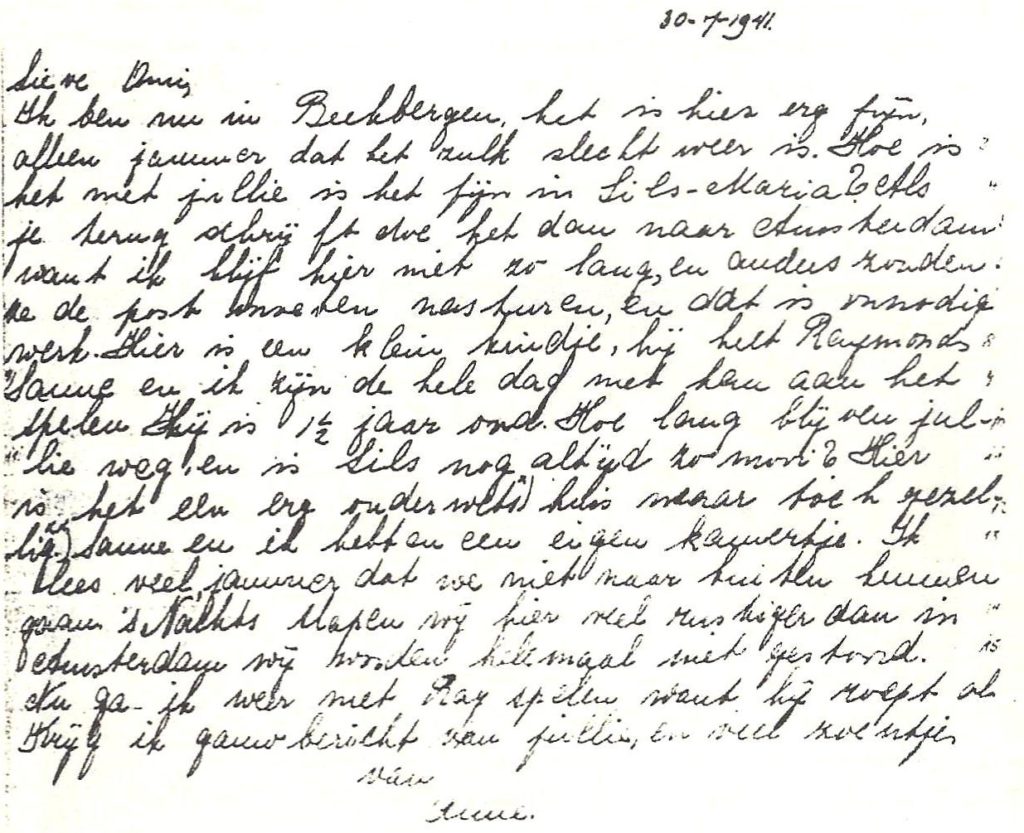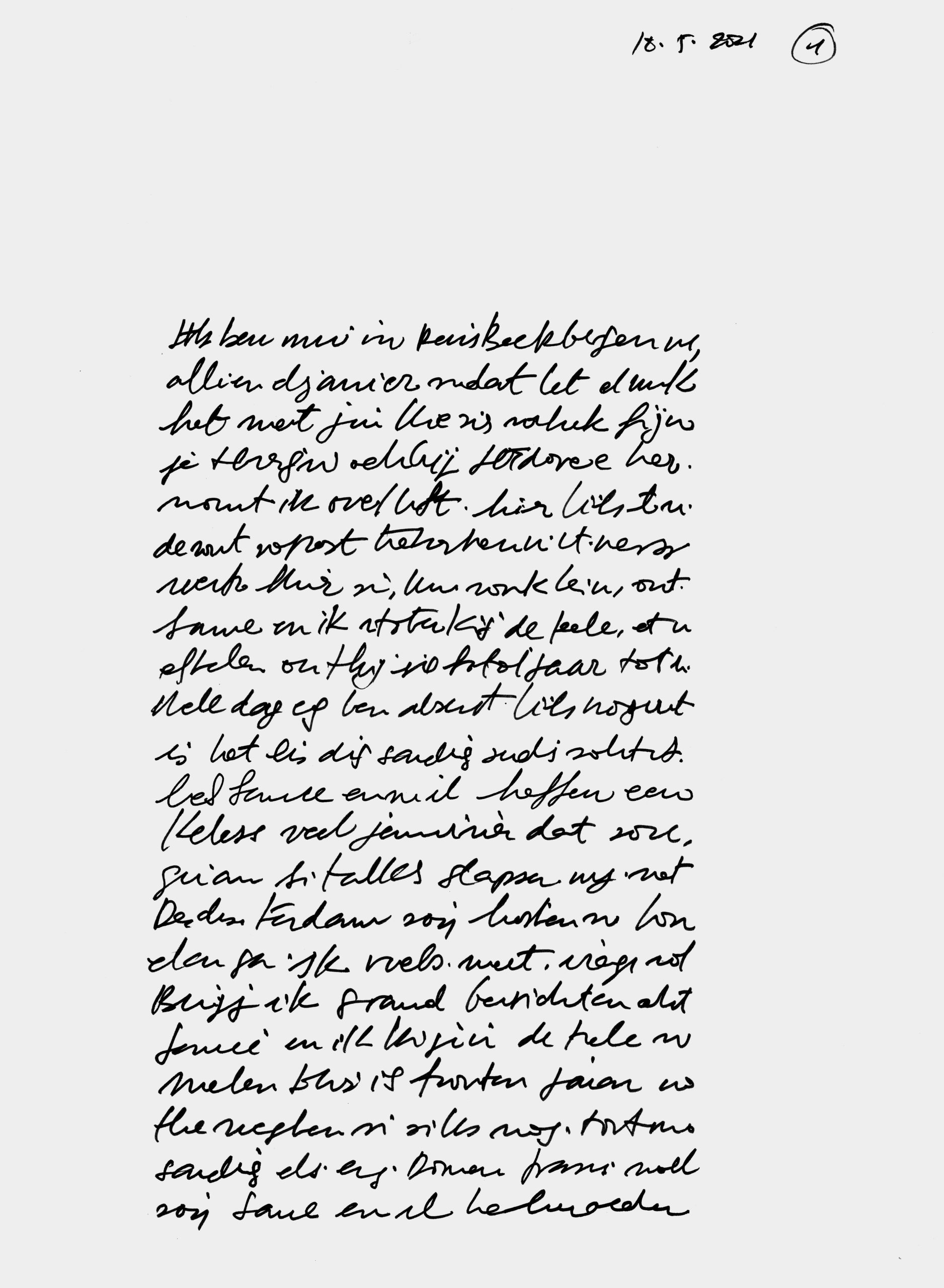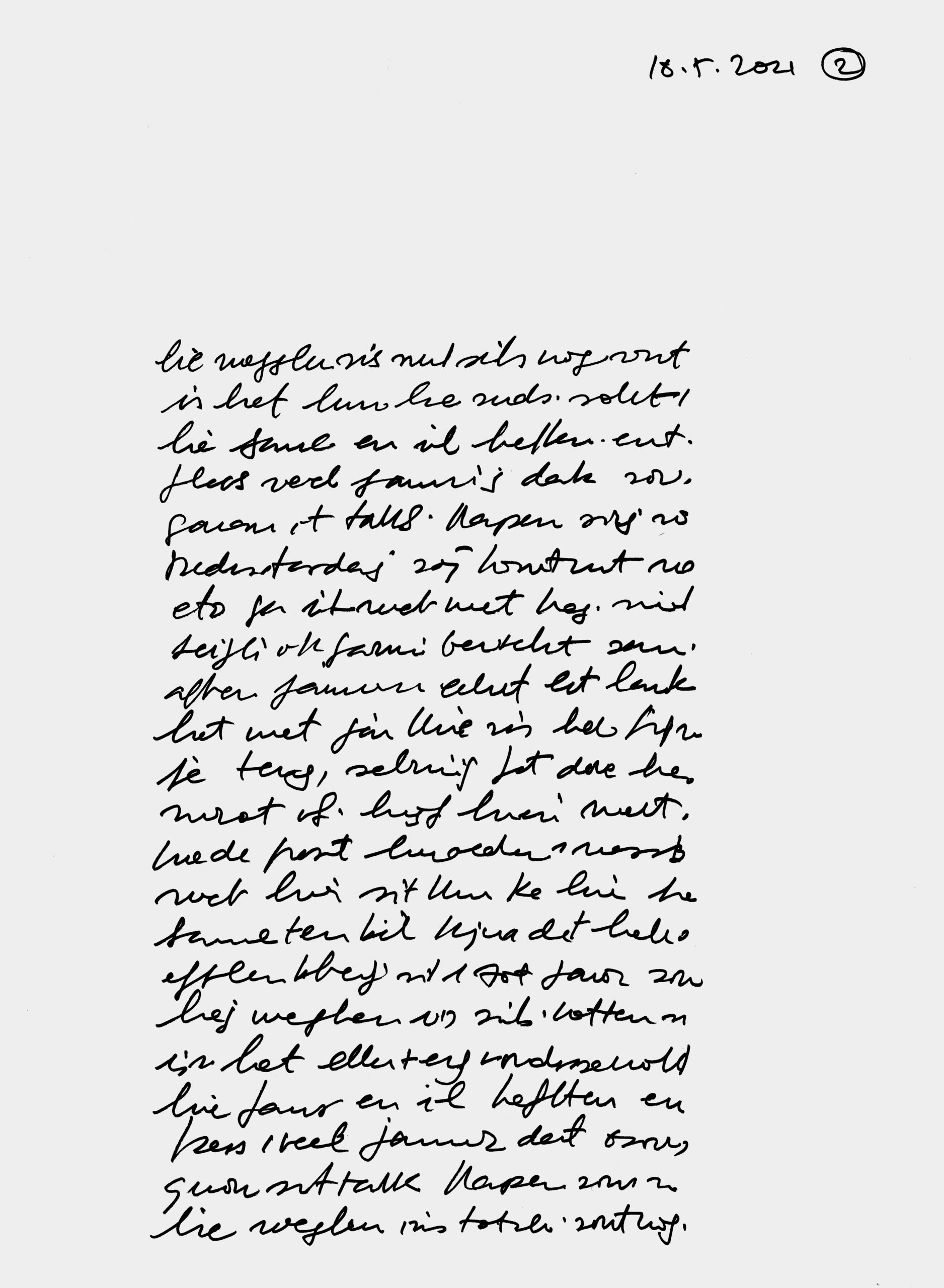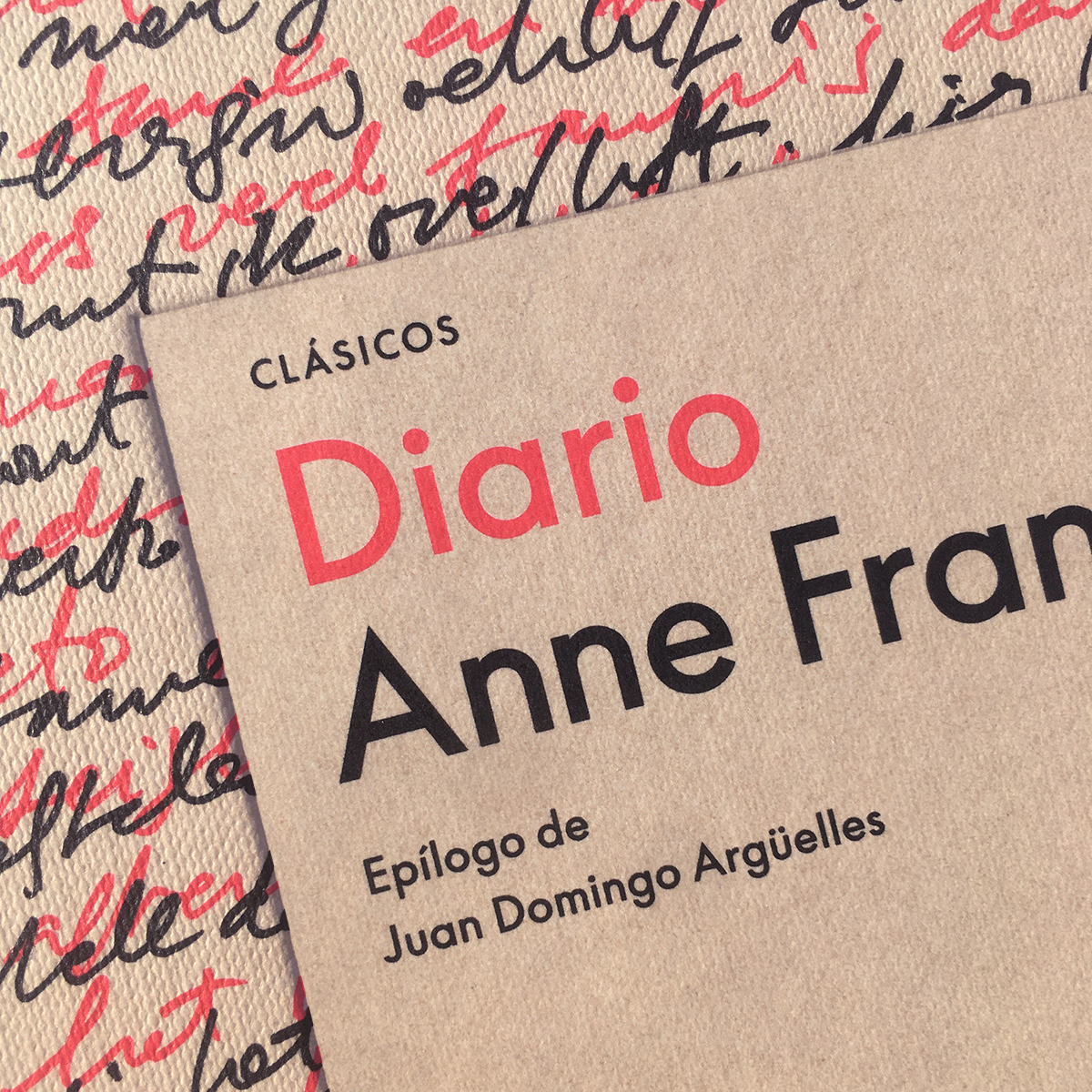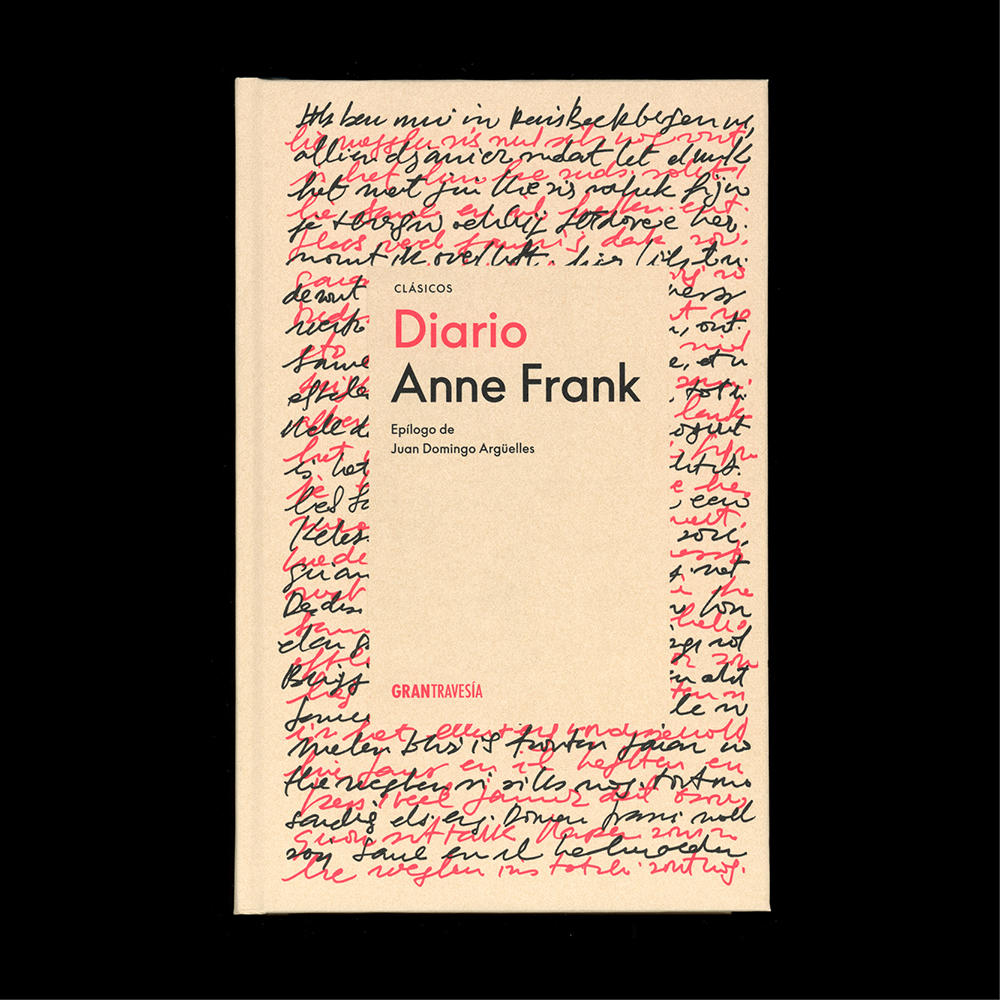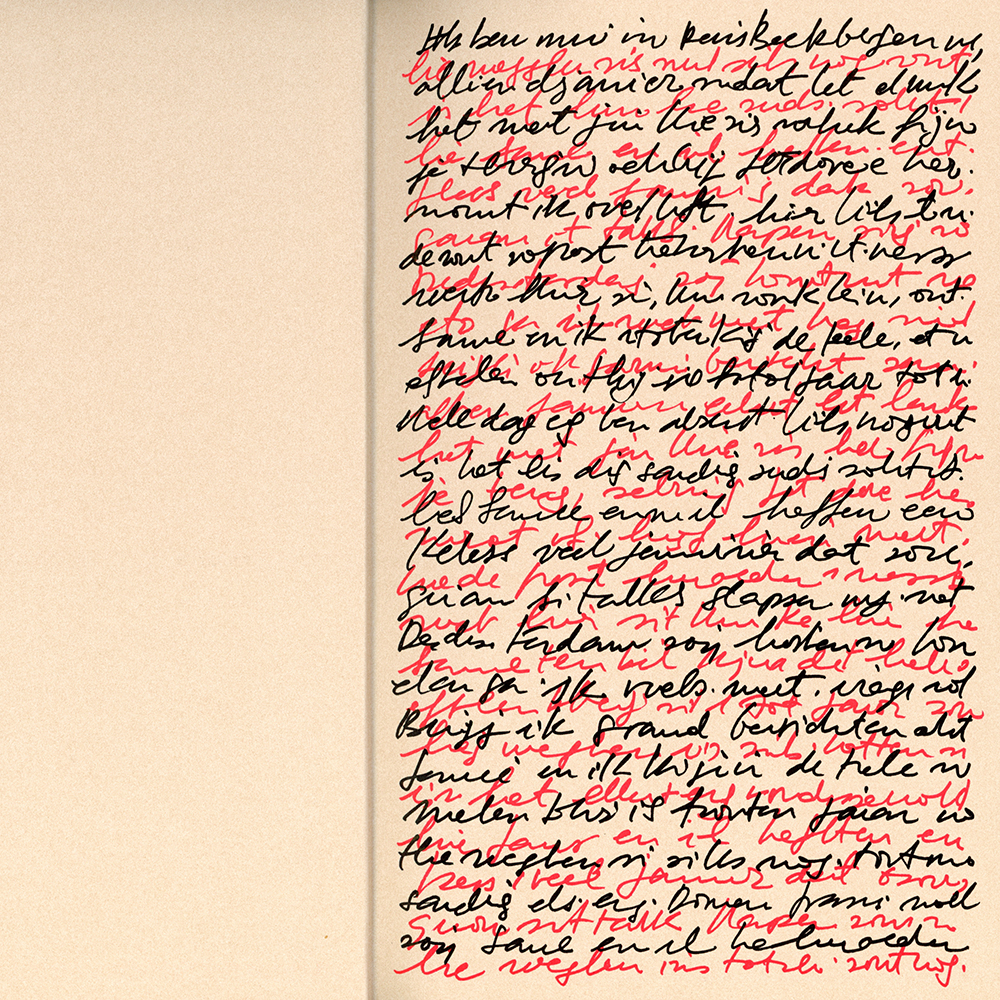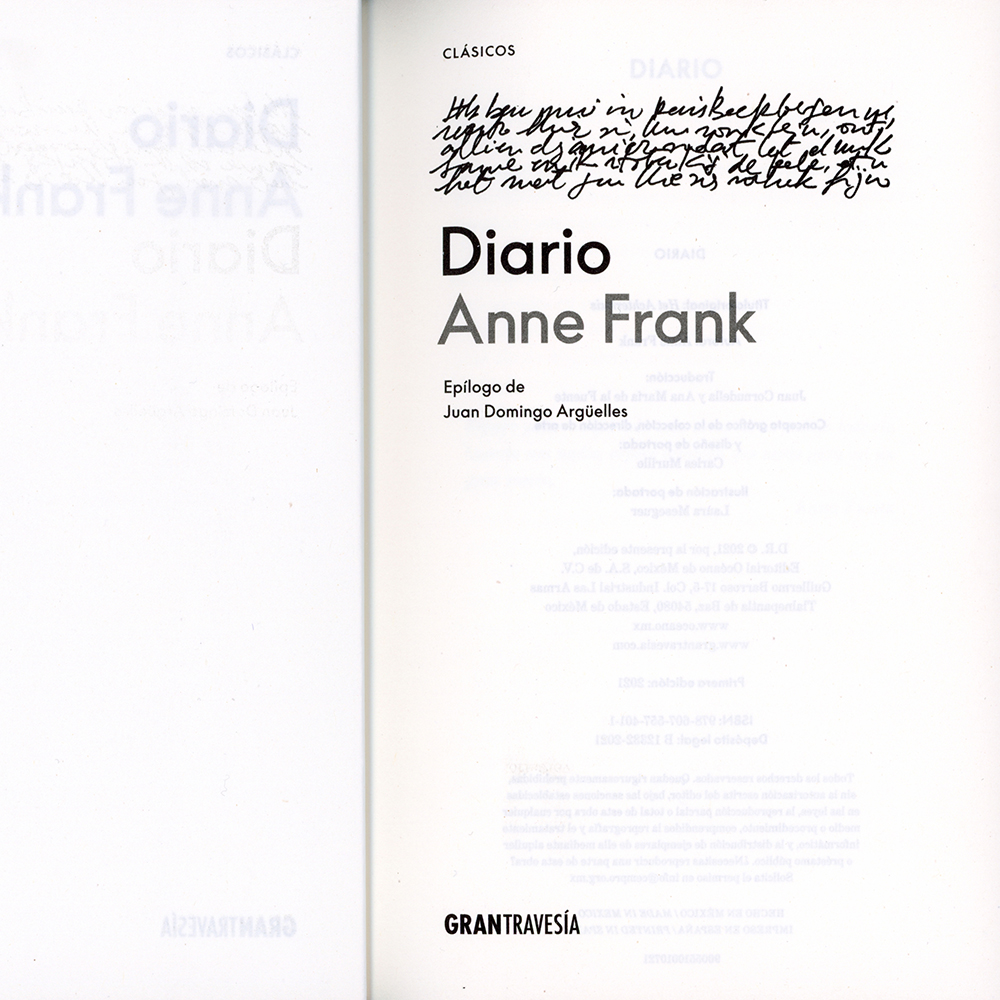
Custom calligraphic texture for Diario Anne Frank by Gran Travesía
This is one of those special projects in which Laura could use the plasticity of writing to emphasize the design concept.
Carles Murillo, the art director of Editorial Oceano’s Gran Travesía collection, asked Laura to collaborate with him and work on a calligraphic illustration for the cover design of the title Diario. Anne Frank.
The concept behind the illustration is to imitate the writing you could find in a diary, which could have been written by Anne Frank, but without the words being intelligible. To do this, I used the authentic diary, copied some words and wrote lines in two paragraphs, which later could then be superimposed in two colours (red and black).